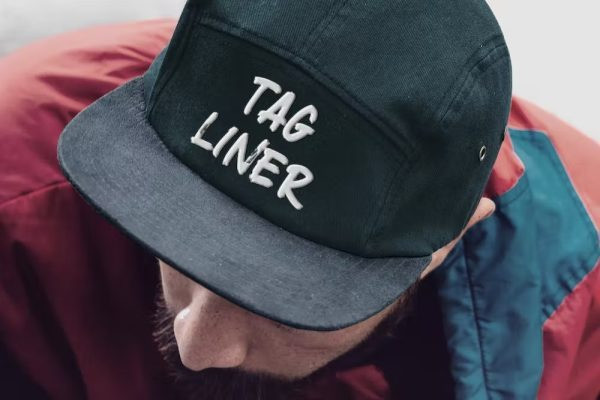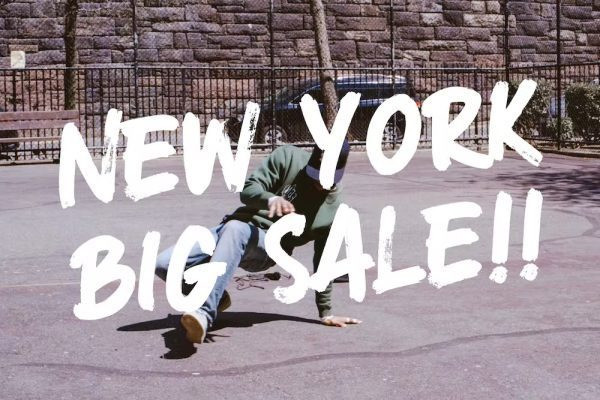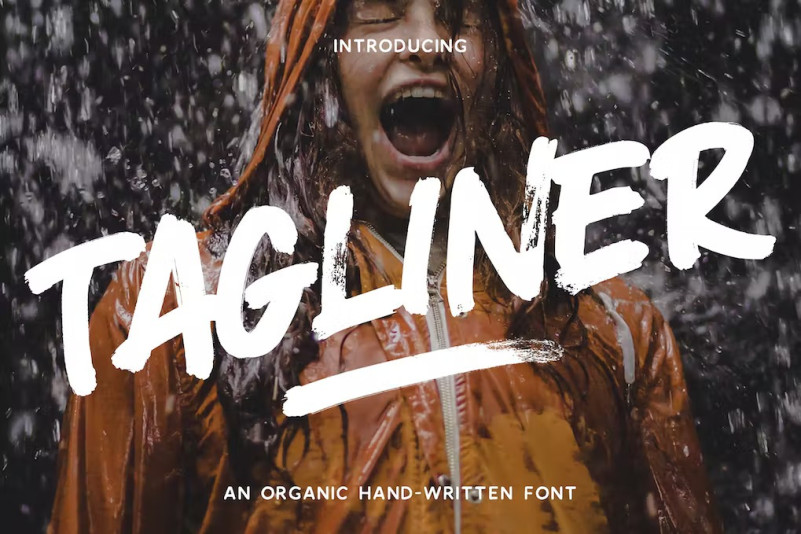
Tagliner Font
TAGLINER Brush Font is a hand-written all caps brush font. It includes 2 sets of capitals uppercase and undercase, so you can combine each other to create more possibilities. This font pack are included both OTF and TTF file with major western characters.